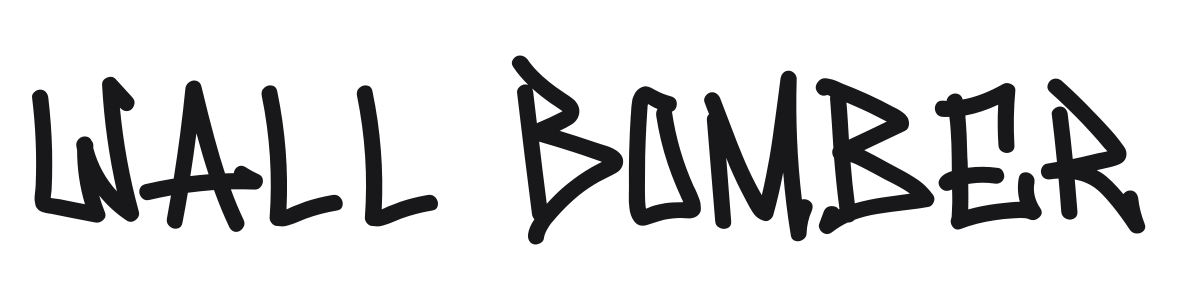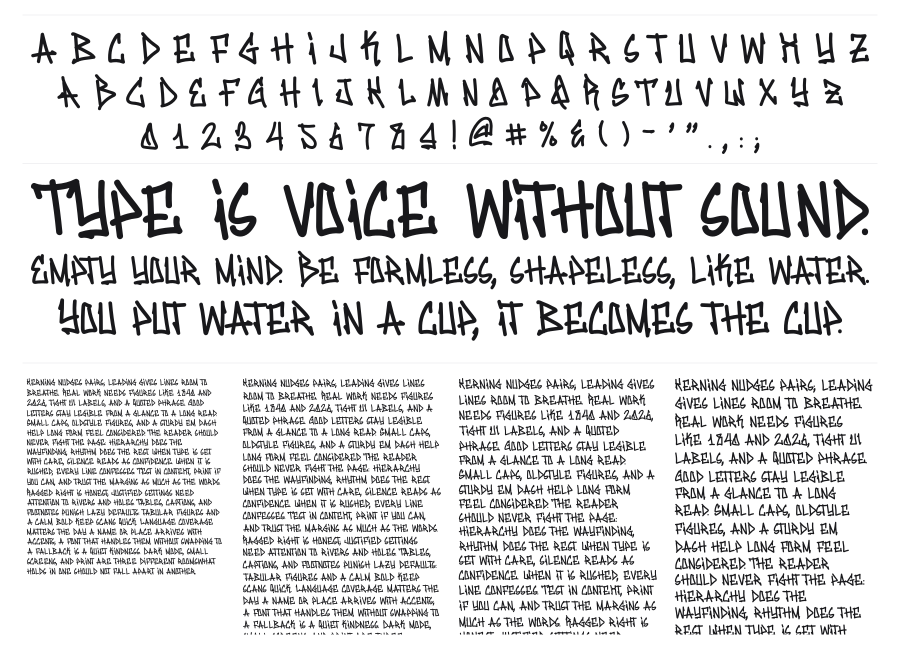
Wall Bomber
Wall Bomber is a bold graffiti display font with rough, spray-can-inspired strokes and a deliberately unruly character. The heavy weight and jagged edges capture the energy of street lettering, from subway walls to skate culture. It brings raw urban attitude to headlines, album art, and streetwear branding.